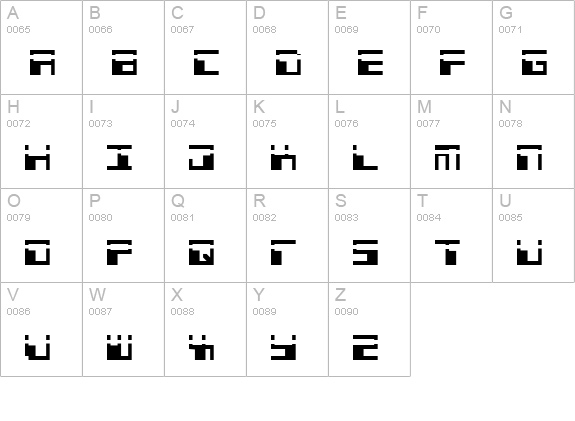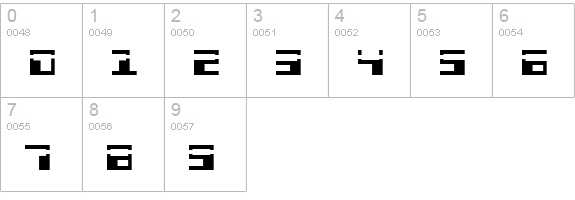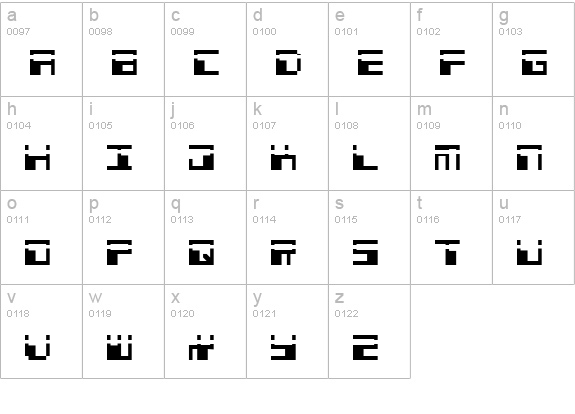
Introducing Phaser Bank Laser font, a futuristic and dynamic typeface that will take your designs to the next level. This cutting-edge font features sleek lines and sharp angles, making it perfect for projects that require a modern and high-tech look. Whether you're working on a sci-fi poster, a tech website, or a gaming logo, Phaser Bank Laser font will add a touch of sophistication and innovation to your work. And the best part? Phaser Bank Laser font is completely free to download at FontsMarket.com! With just a few clicks, you can add this stunning font to your collection and start using it in your projects right away. Don't miss out on this incredible opportunity to elevate your designs with Phaser Bank Laser font. Download it now and see the difference it makes!